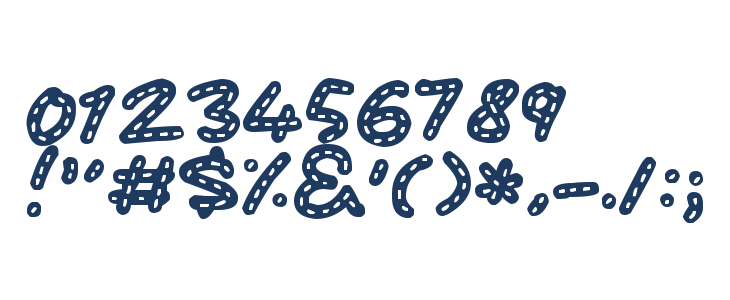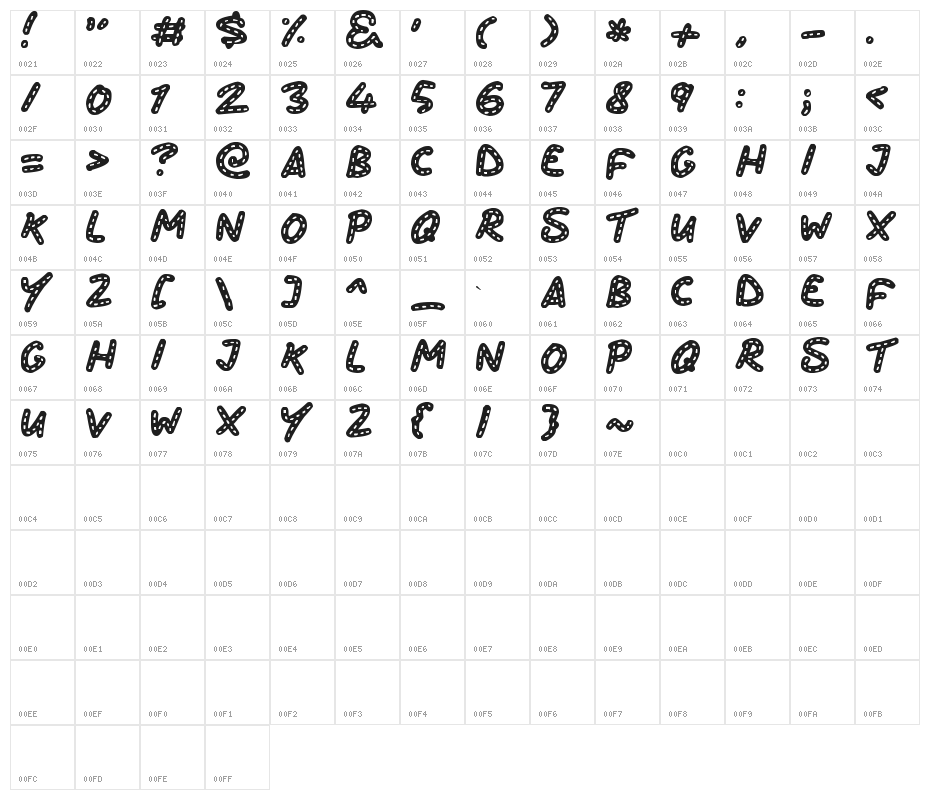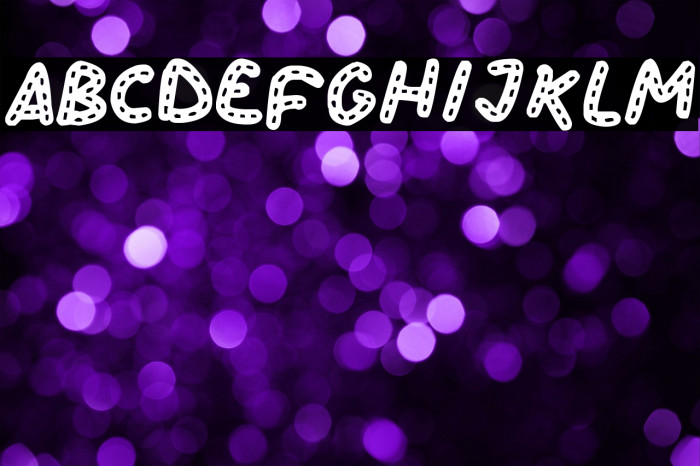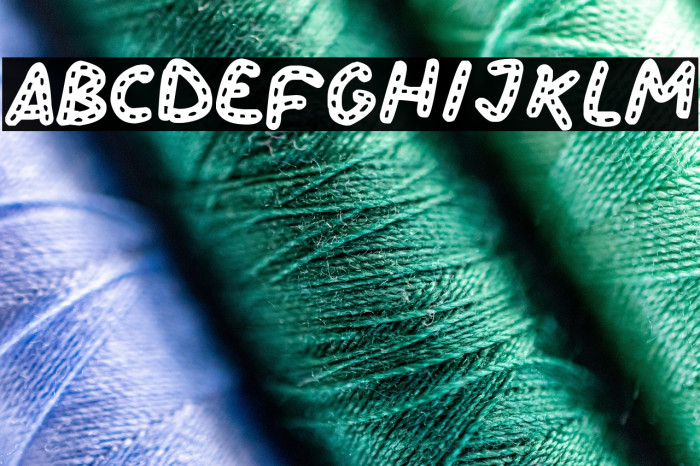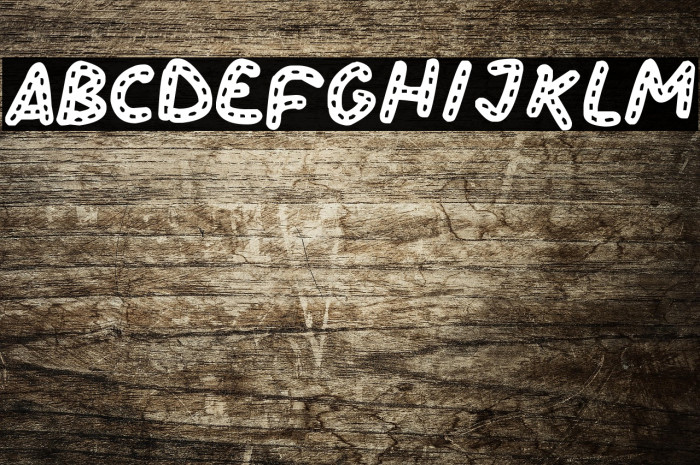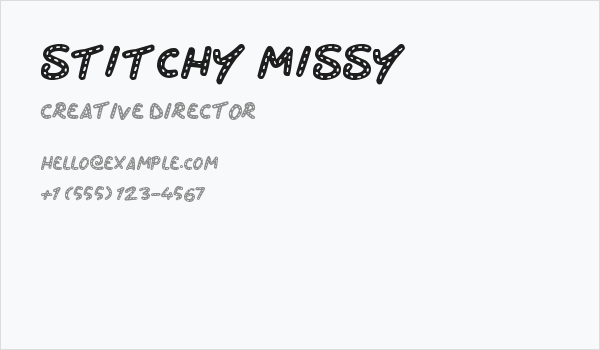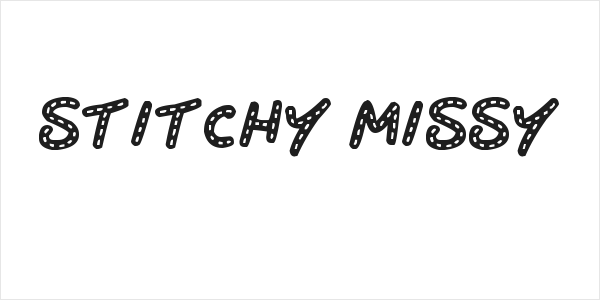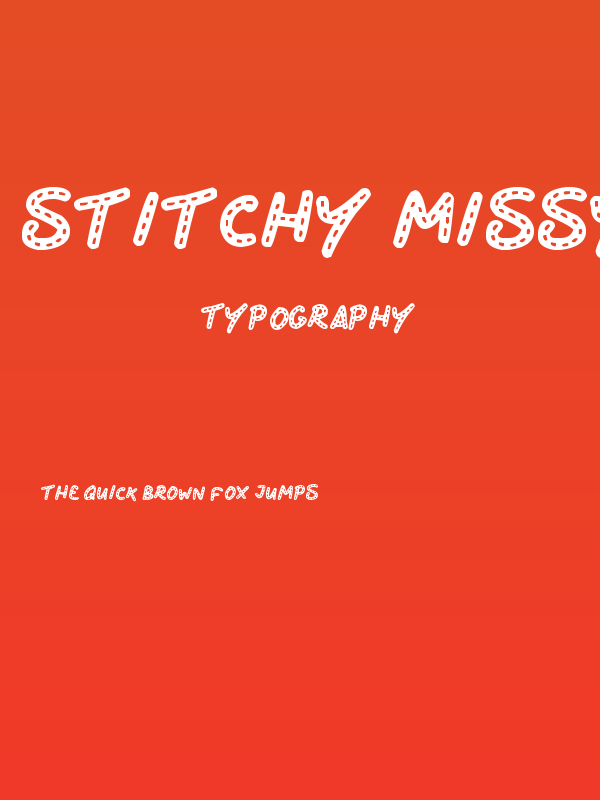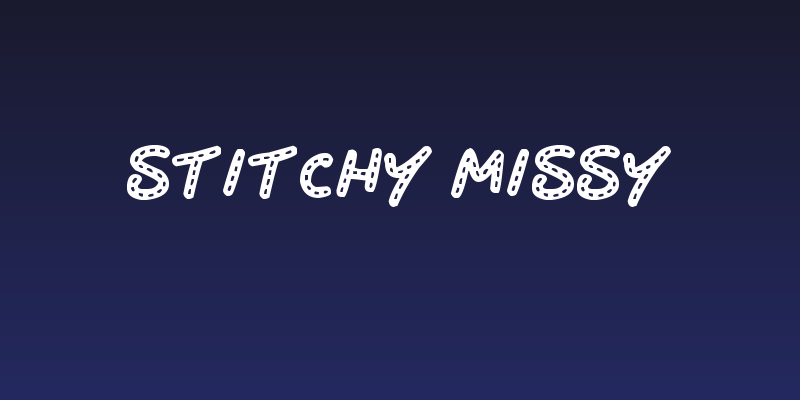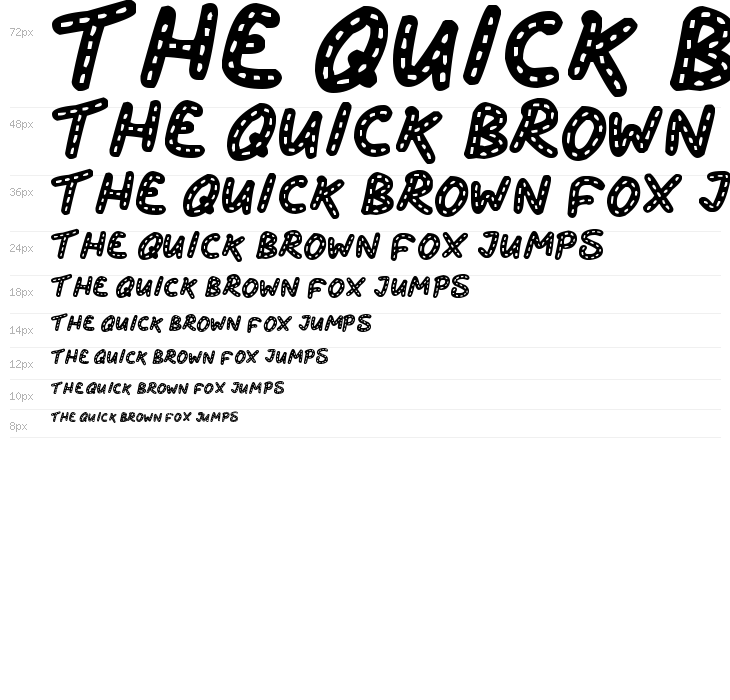
Stitchy Missy Font
Stitchy Missy Description
This playful and whimsical font features bold, rounded characters with a stitched pattern running through each letter. The design evokes a handmade, crafty feel, reminiscent of sewing or embroidery. The letters are uniformly bold, with a consistent thickness that adds to the font's playful nature. Each character is distinct and easily readable, making it suitable for creative and informal projects. The numbers and special characters maintain the same stitched aesthetic, ensuring a cohesive look across all text elements.
Overall StylePlayful, Crafty
Proposed ProjectsIdeal for children's books, craft projects, DIY-themed graphics, and playful branding.